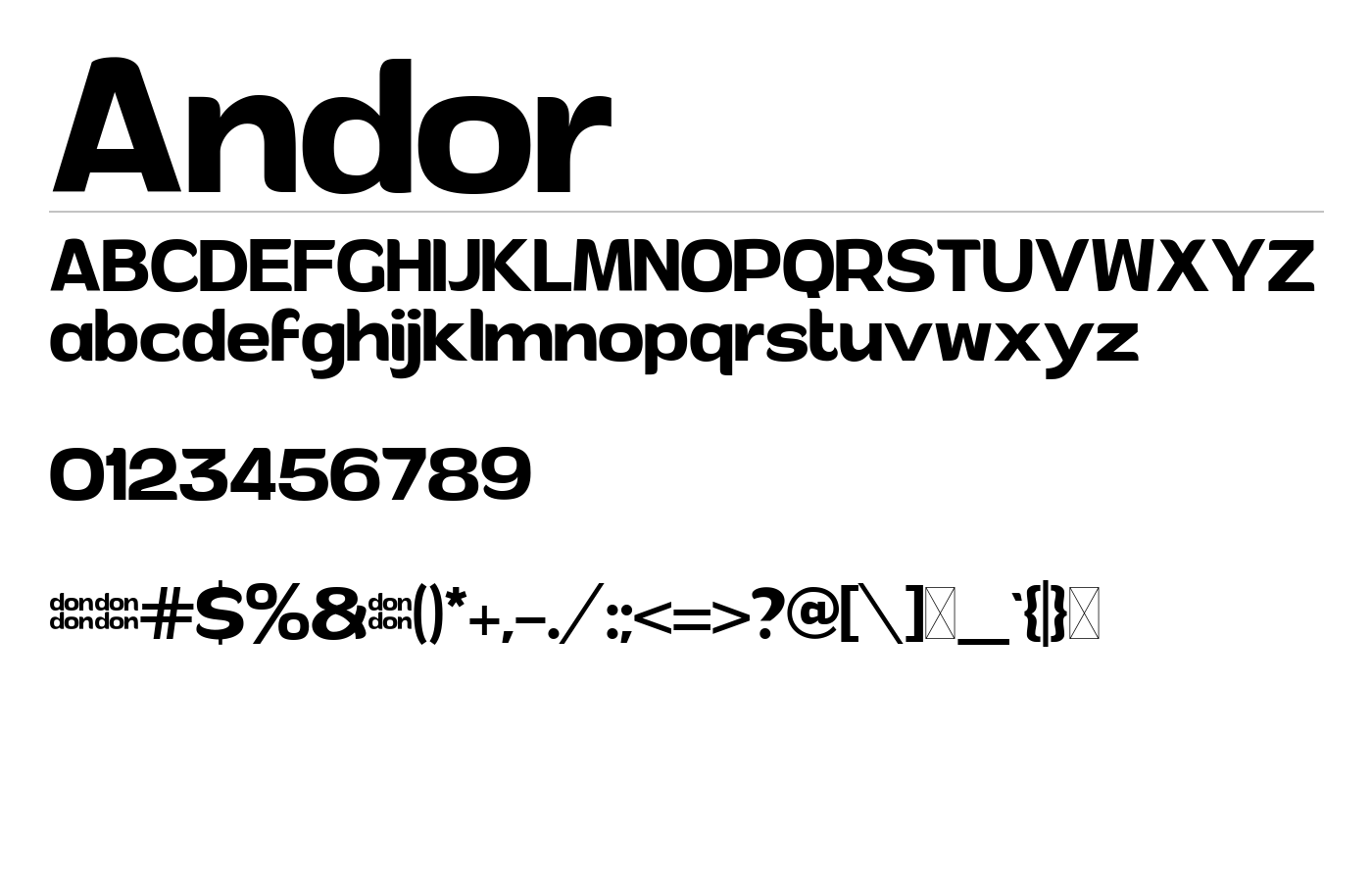
Andor is a bold, wide sans serif font with strong geometric influences and a clean, modern feel. Its high x-height, rounded terminals, and uniform stroke weight create a friendly yet authoritative appearance, making it ideal for headlines, branding, and display use where impact and clarity are key. This font works well in contemporary design contexts seeking bold simplicity and readability.
Andor Font
About Andor Font